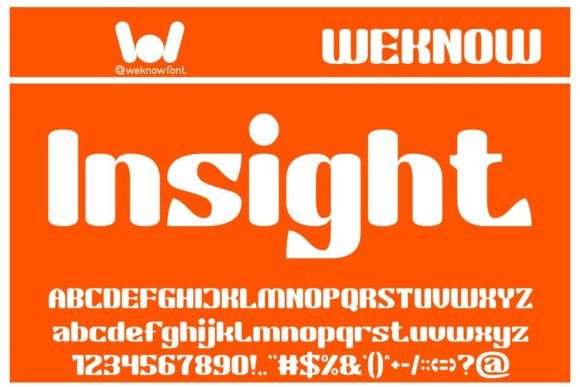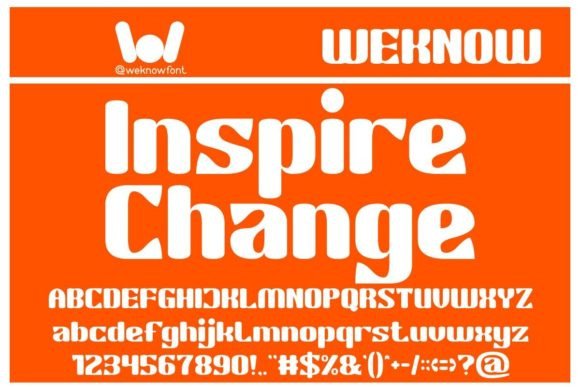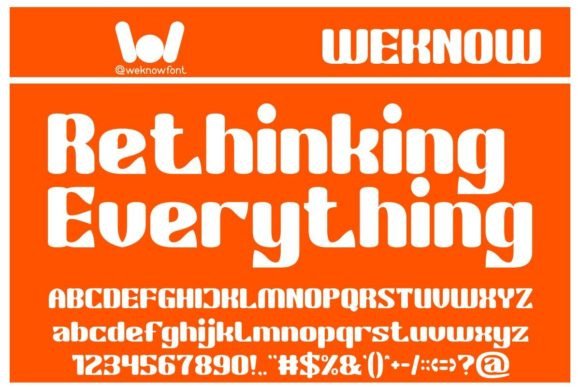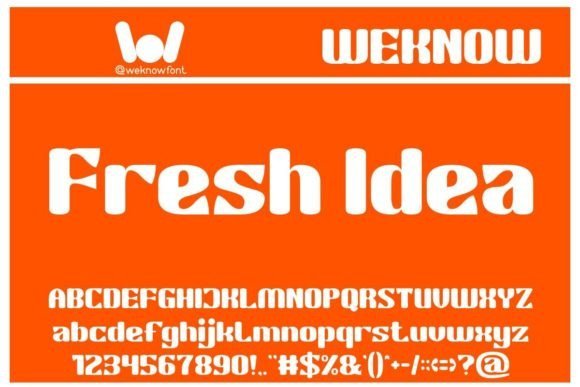
Introduction to Fresh Idea Font
Introducing Fresh Idea, a classically contemporary and vibrant display font.
It radiates a certain freshness that Your brand can leverage, woven in clean and pleasant lines that can adapt to various uses From designing compelling logos and headlines that grab attention, to establishing a unique and striking brand identity, Fresh Idea can add an element of distinction to your work.
Key Features of Fresh Idea Font
Why Choose Fresh Idea Font?
Fresh Idea Font offers exceptional quality and versatility, making it a valuable addition to your design toolkit. Whether you’re creating for personal projects or commercial use, Fresh Idea Font delivers professional results.